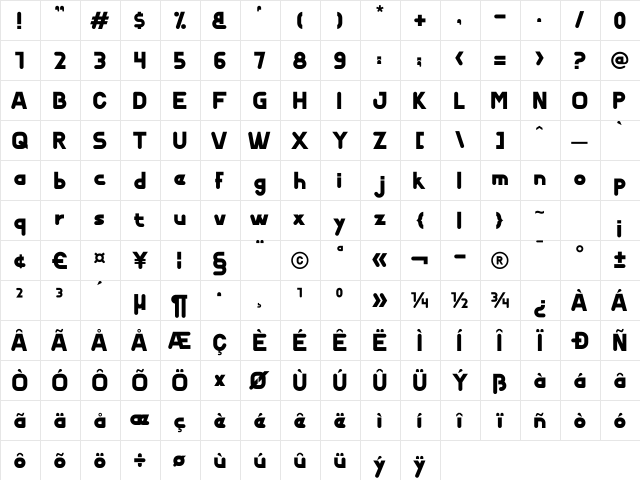
Neonix Regular
Design Context for Neonix Typeface
Neonix channels digital-age aesthetics through its sharp, structured letterforms — ideal for brands that want to signal innovation.
Pro Tip: Use Neonix in combination with a neutral sans for body text. Let it define the brand voice in headlines while keeping reading comfortable elsewhere.